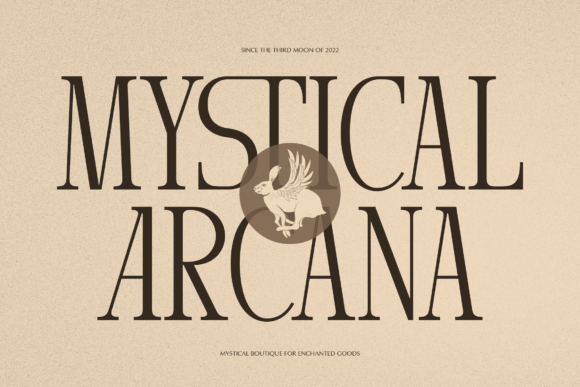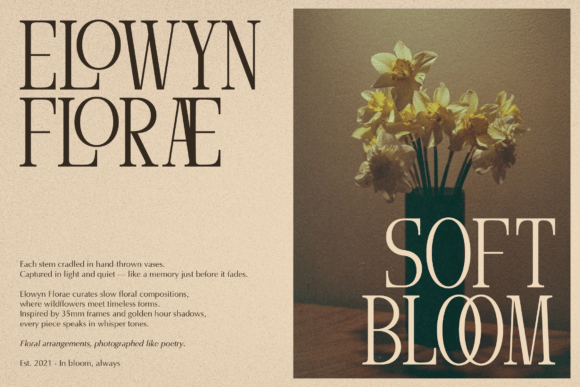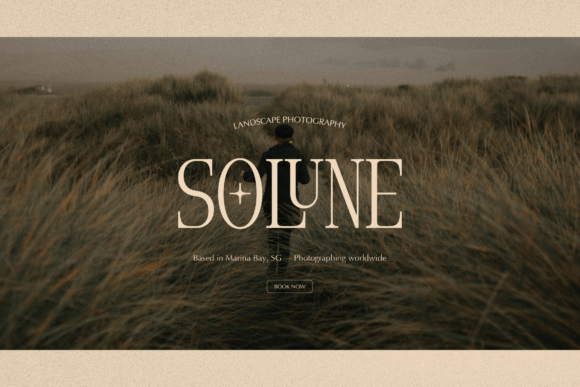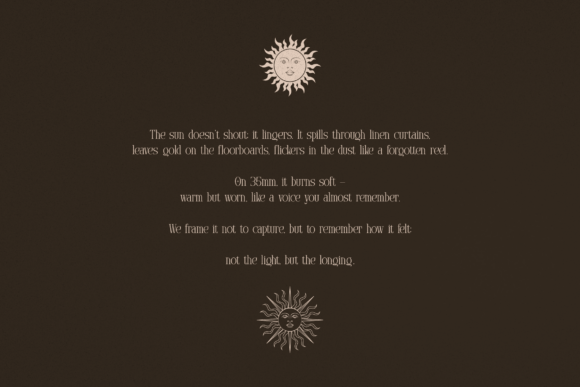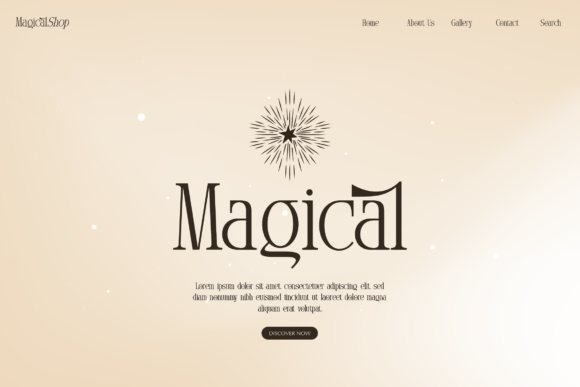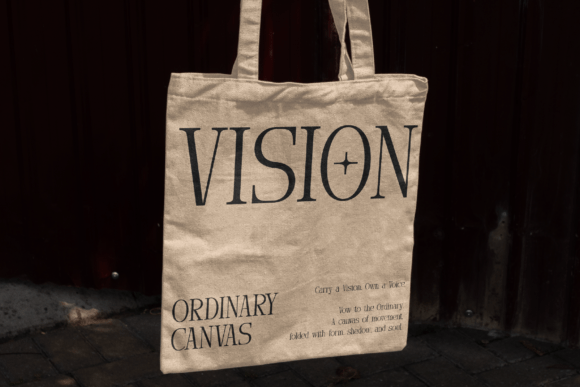
Introducing Arnelo Font: Elevate Your Designs with Elegance and Sophistication
In the world of typography, fonts play a crucial role in conveying the tone and personality of a brand or design. For those seeking a refined and modern display serif font, Arnelo is an exceptional choice. With its high-contrast style and elegant letterforms, Arnelo is perfect for luxury branding, editorial titles, packaging, and sophisticated logos. In this article, we’ll delve into the features and benefits of Arnelo Font, and explore how it can elevate your designs to new heights.
A Refined Modern Display Serif
Arnelo Font is a masterpiece of modern typography, boasting a high-contrast style that exudes elegance and sophistication. Its refined letterforms are carefully crafted to provide a timeless visual appeal, making it an ideal choice for designers and crafters seeking to create stunning visual content. Whether you’re working on a luxury brand identity, editorial titles, or packaging design, Arnelo’s classic beauty and contemporary minimalism ensure that your designs will stand out from the crowd.
Elegant Features and Details
One of the standout features of Arnelo Font is its elegant ligatures, unique alternates, and subtle decorative details. The star within the “O” is a beautiful touch that adds a level of sophistication to the font. These thoughtful details allow designers to add an extra layer of depth and personality to their work, making it perfect for high-end branding and editorial projects. With Arnelo, you can create designs that are not only visually stunning but also tell a story.
Ideal for Luxury Branding and Editorial Titles
Arnelo Font is specifically designed for luxury branding, editorial titles, packaging, and sophisticated logos. Its high-contrast style and elegant letterforms make it perfect for creating visually stunning headlines, titles, and taglines. Whether you’re working on a luxury fashion brand, a high-end jewelry campaign, or a premium food packaging design, Arnelo provides the perfect typographic solution. Its classic beauty and contemporary minimalism ensure that your designs will exude sophistication and elegance.
Balancing Classic Beauty with Contemporary Minimalism
Arnelo Font strikes the perfect balance between classic beauty and contemporary minimalism. Its refined letterforms and high-contrast style evoke a sense of timelessness, while its elegant features and subtle decorative details provide a modern twist. This balance makes Arnelo an incredibly versatile font, suitable for a wide range of design applications. Whether you’re creating a sophisticated logo, editorial title, or packaging design, Arnelo provides the perfect blend of classic elegance and modern sophistication.
Arnelo Font is a dream come true for designers and crafters seeking to create stunning visual content. Its elegant features, refined letterforms, and high-contrast style make it perfect for a wide range of design applications. With Arnelo, you can:
- Create stunning luxury branding and editorial titles that exude elegance and sophistication.
- Design visually appealing packaging that stands out on store shelves.
- Develop sophisticated logos that convey a sense of timelessness and classic beauty.
- Elevate your designs with elegant ligatures, unique alternates, and subtle decorative details.
In conclusion, Arnelo Font is an exceptional choice for designers and crafters seeking to create stunning visual content. Its refined modern display serif, high-contrast style, and elegant letterforms make it perfect for luxury branding, editorial titles, packaging, and sophisticated logos. With its elegant features, subtle decorative details, and balance of classic beauty and contemporary minimalism, Arnelo provides a timeless visual appeal that will elevate your designs to new heights. Whether you’re a seasoned designer or a crafty DIY enthusiast, Arnelo Font is an essential addition to your typographic toolkit.